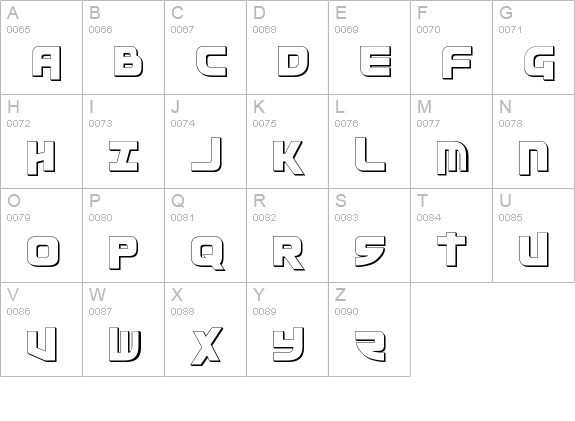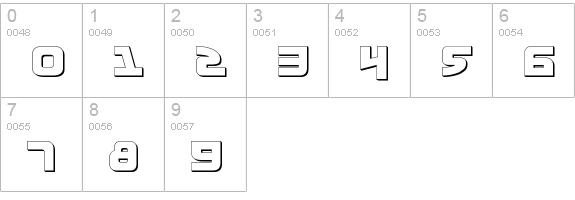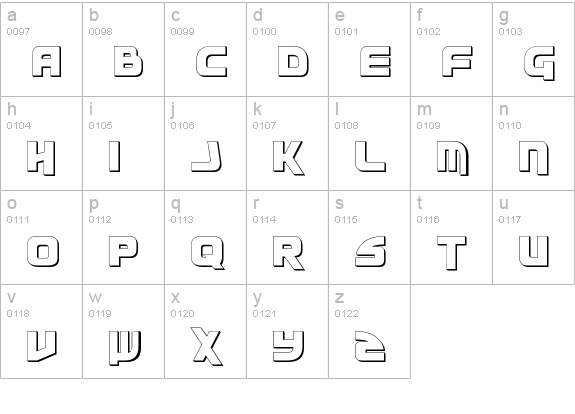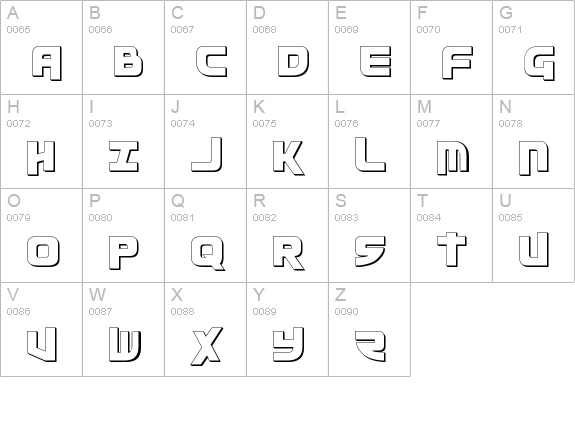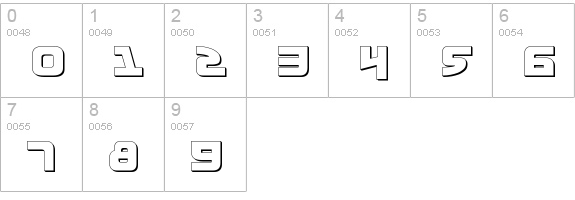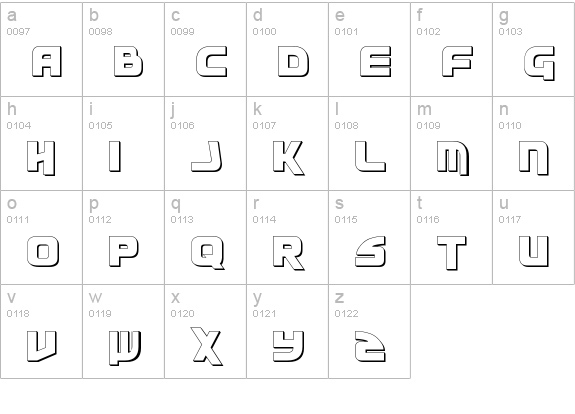
Moltors Outline Font Details
Moltors Outline font is a sleek and modern typeface that exudes a sense of sophistication and elegance. Its clean lines and sharp edges make it perfect for a wide range of design projects, from logos to headlines to branding materials. The outline style of this font adds a unique touch that sets it apart from traditional fonts, making it a standout choice for any creative project. What's even better is that Moltors Outline font is available for free download at FontsMarket.com. This means you can easily access this stylish font and use it in your designs without any cost. Don't miss out on the opportunity to add Moltors Outline to your font collection today and elevate your designs with its modern and stylish aesthetic.